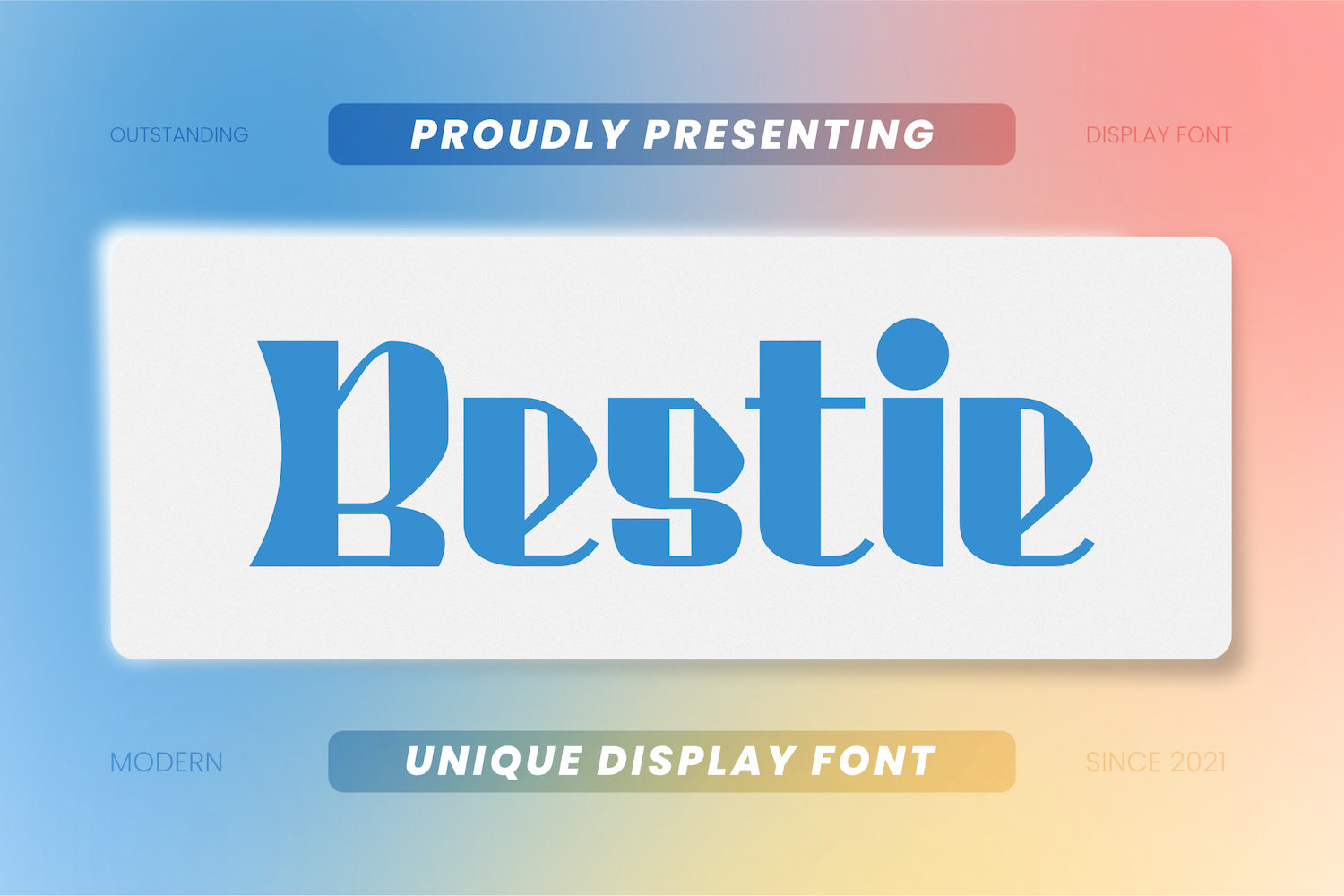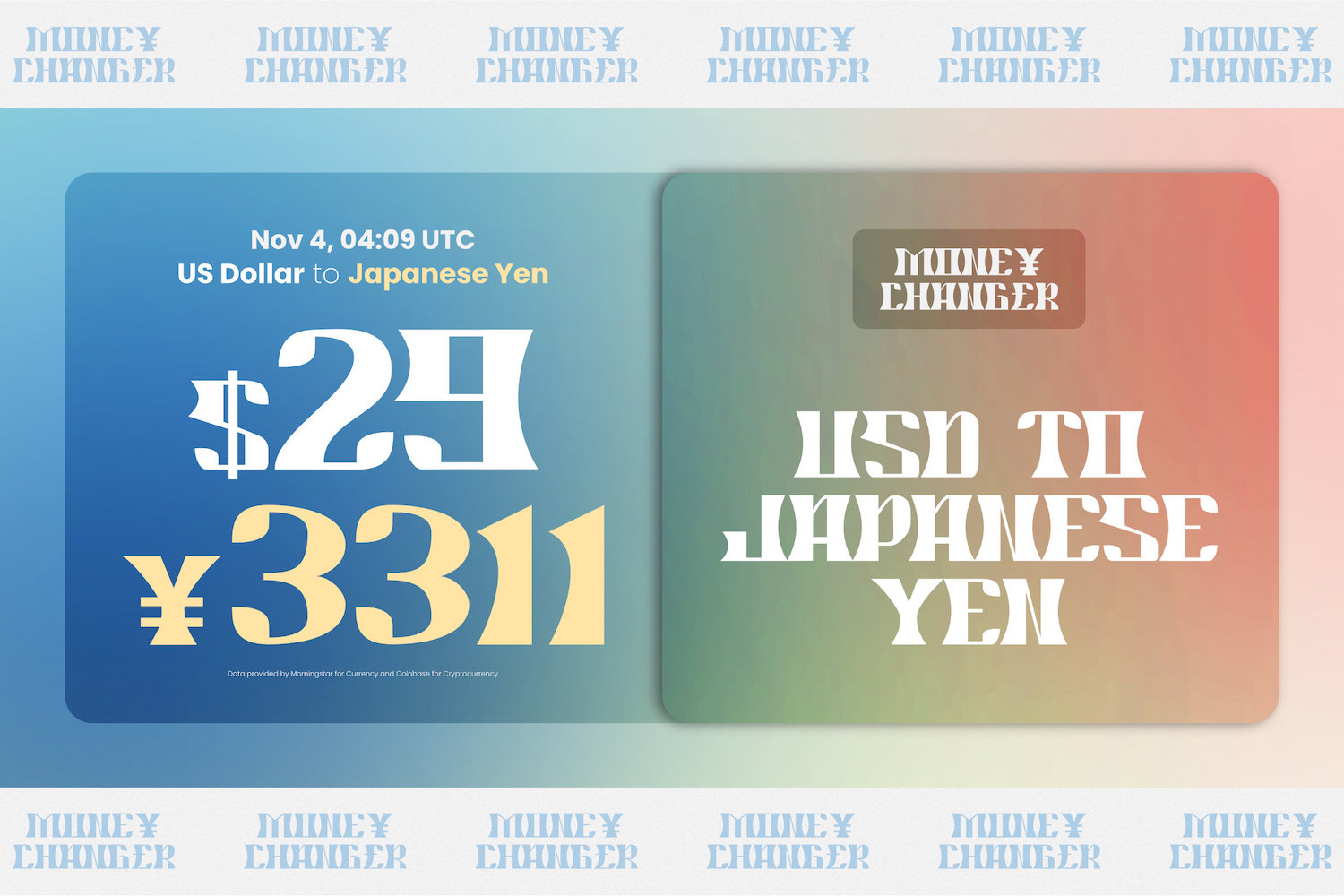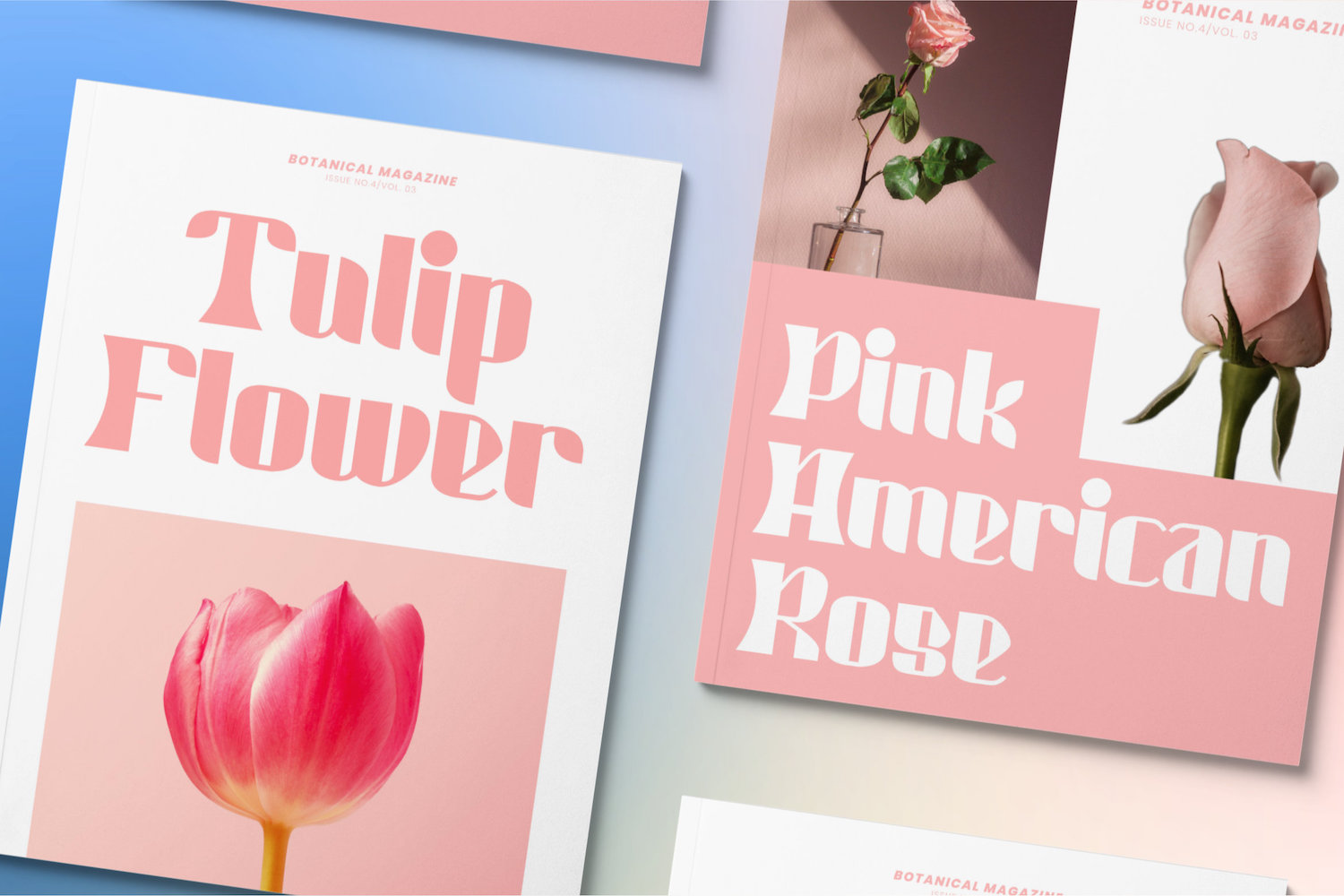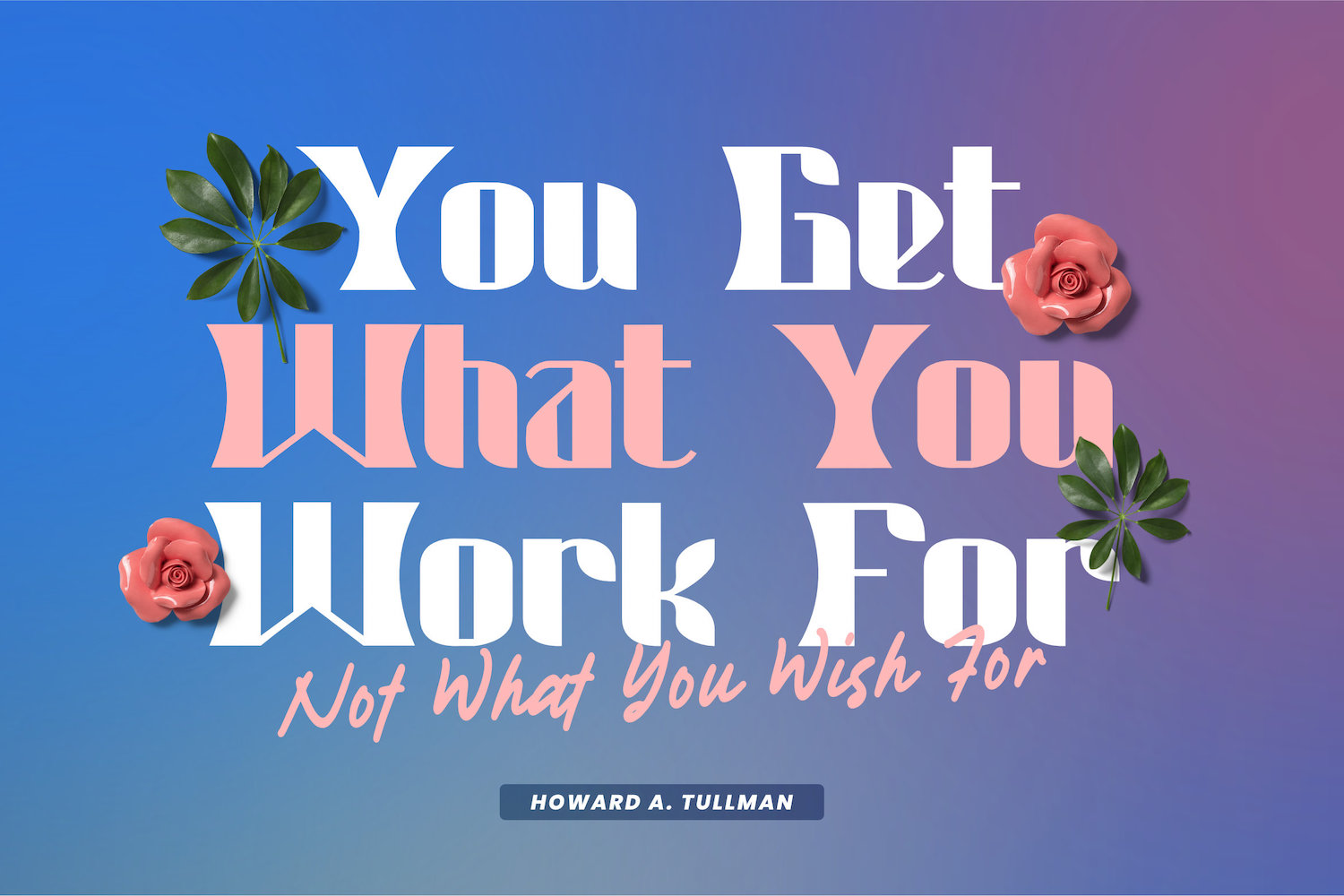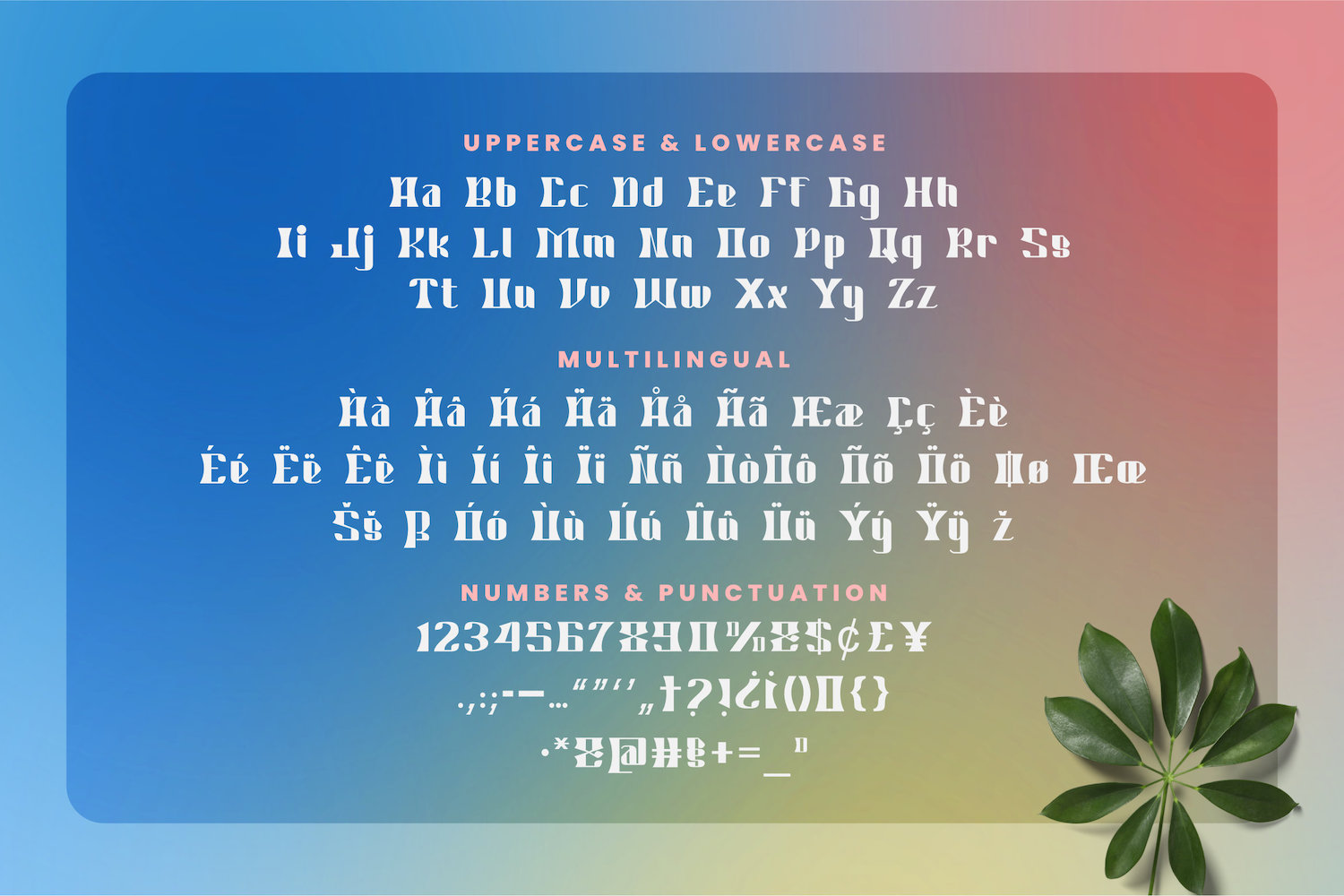
Bestie is a bold and charismatic display font that combines modern gothic-inspired curves with a fresh, playful twist. Each letterform is crafted to grab attention with its sharp edges, contrasting strokes, and stylish geometric construction, making it perfect for headlines, branding, posters, and editorial designs. Whether you’re designing a magazine cover, a trendy apparel label, or a digital banner, Bestie delivers impactful elegance.
This font supports multilingual characters, uppercase and lowercase styles, and a wide set of punctuation and numerals, ensuring flexibility across various design needs. Its distinctive shapes and confident presence make Bestie the perfect companion for creators looking to stand out with a contemporary yet nostalgic aesthetic.
Bestie